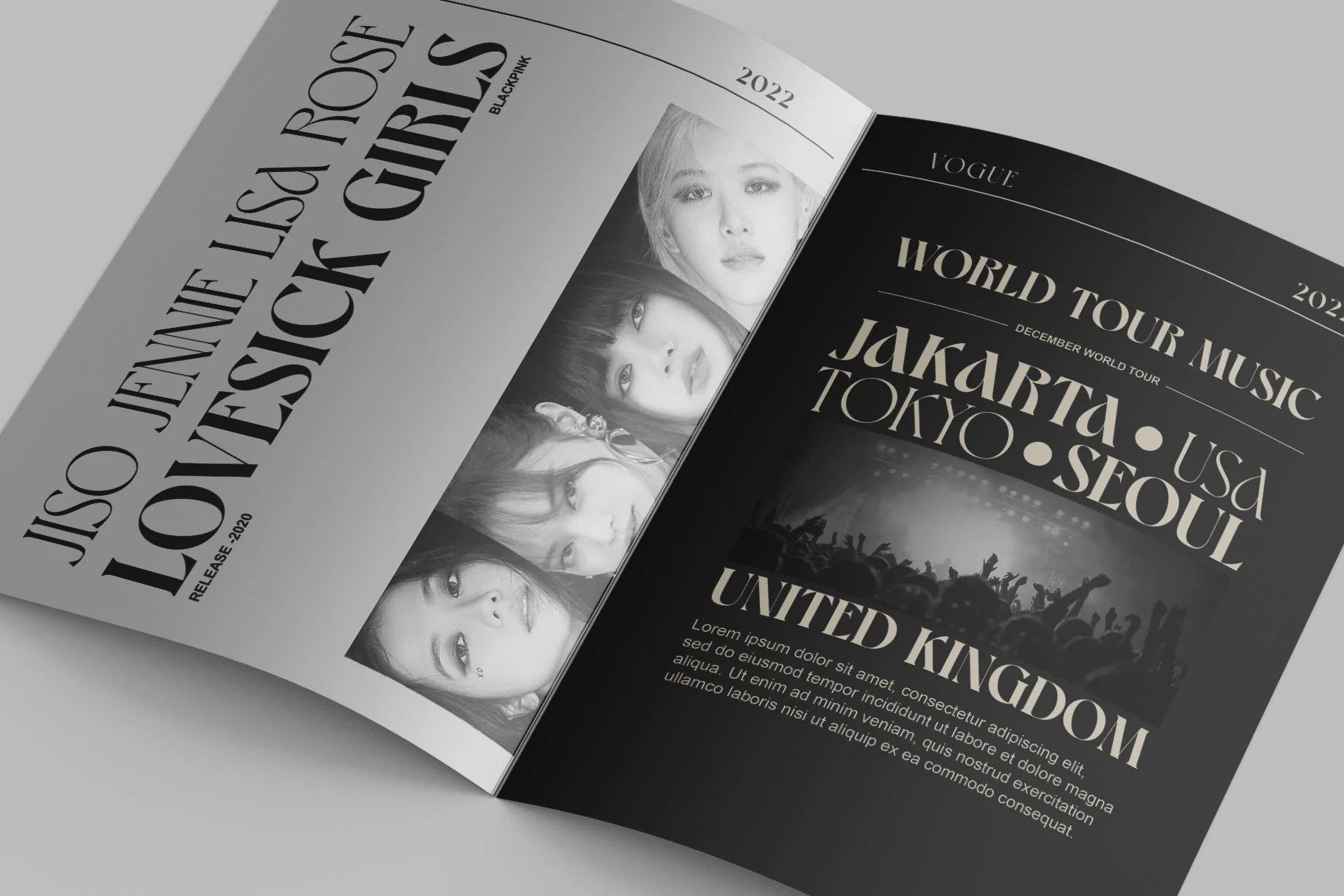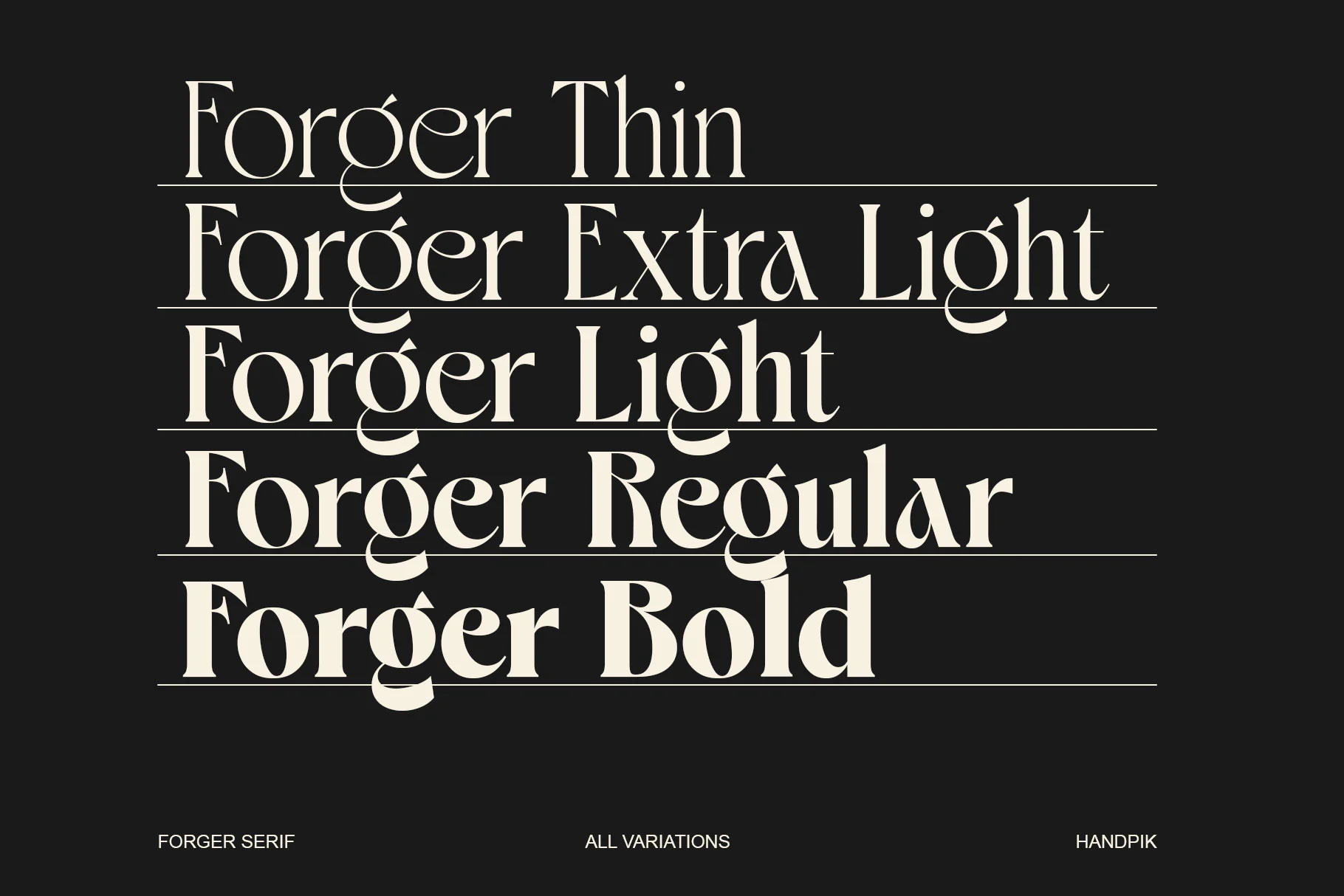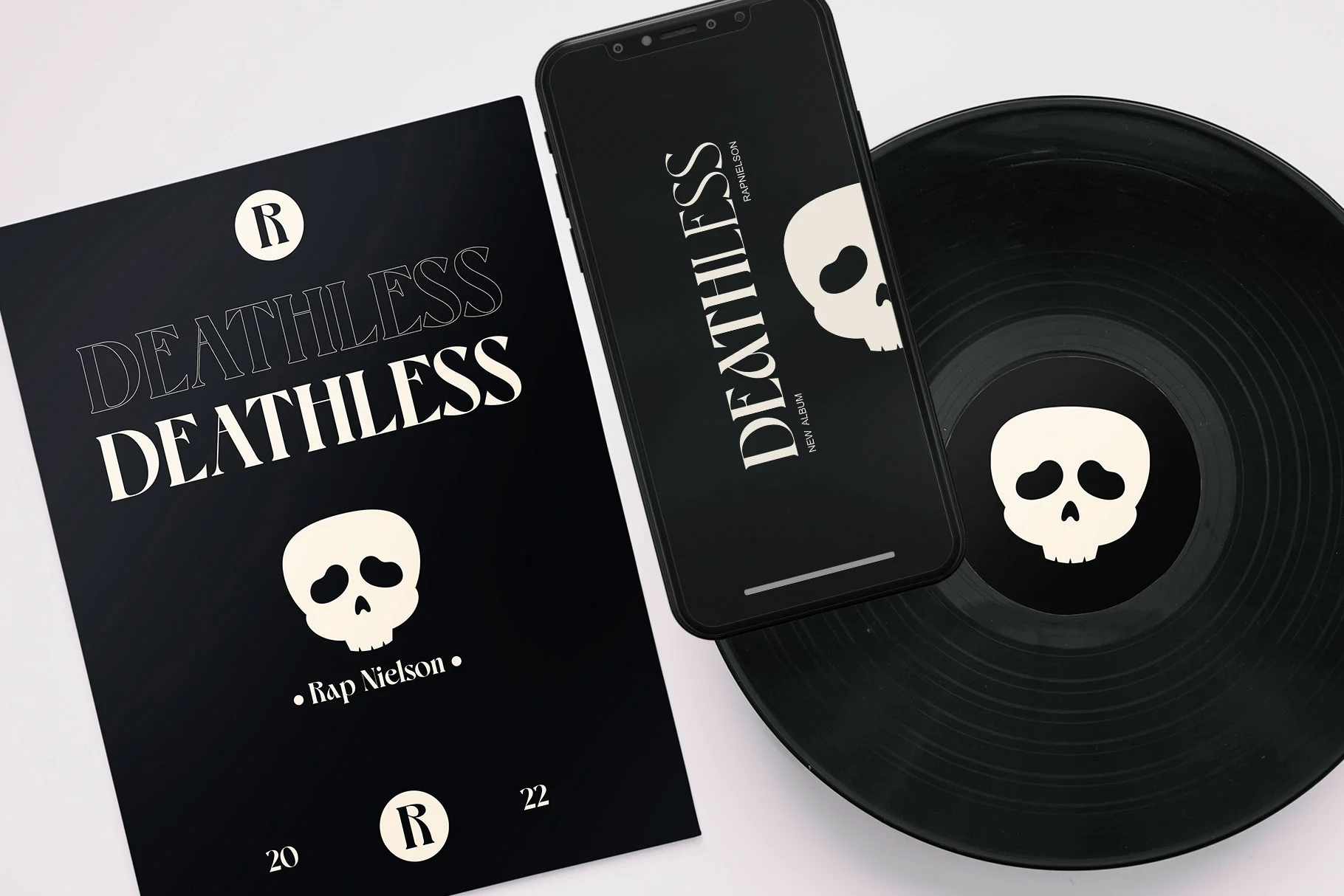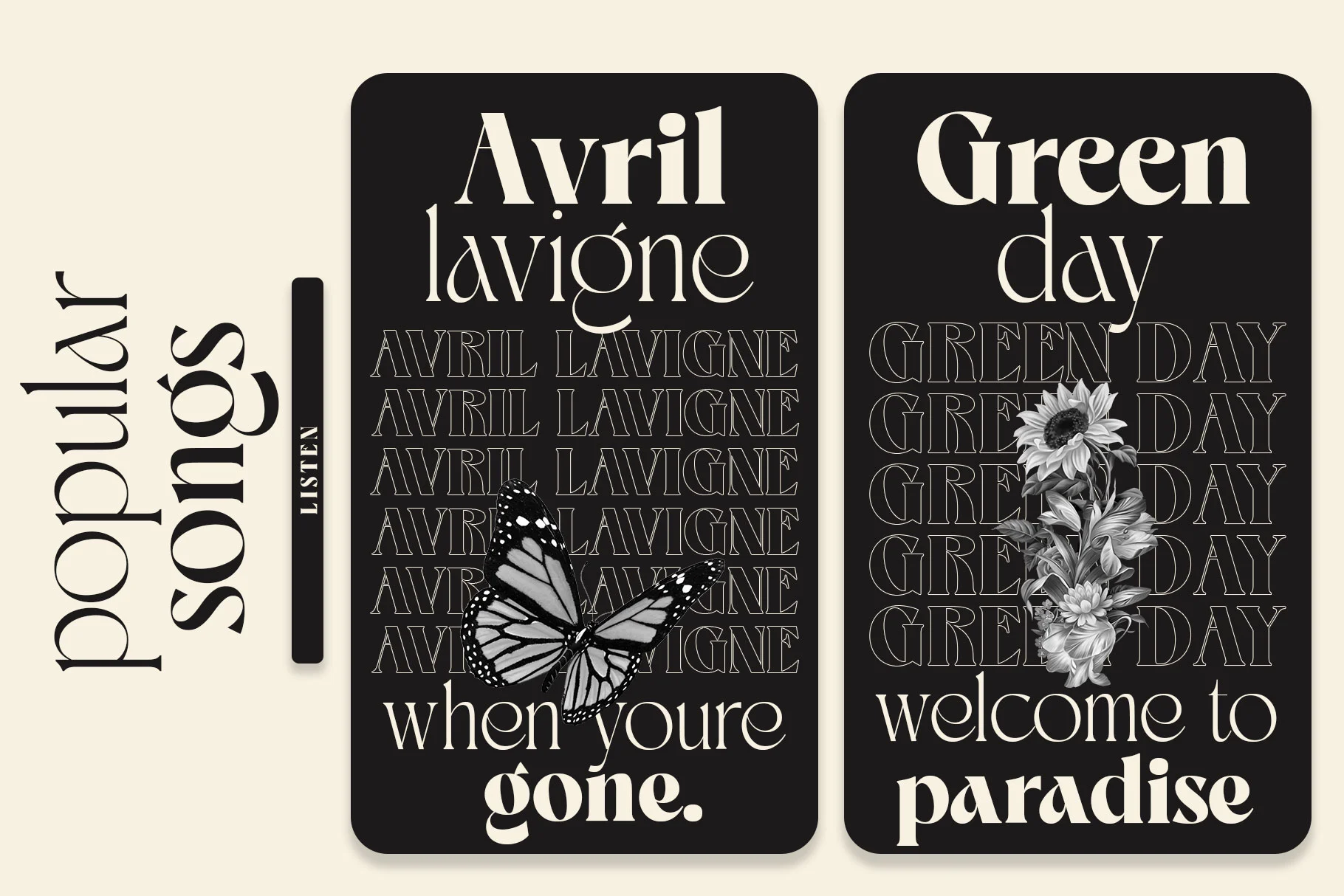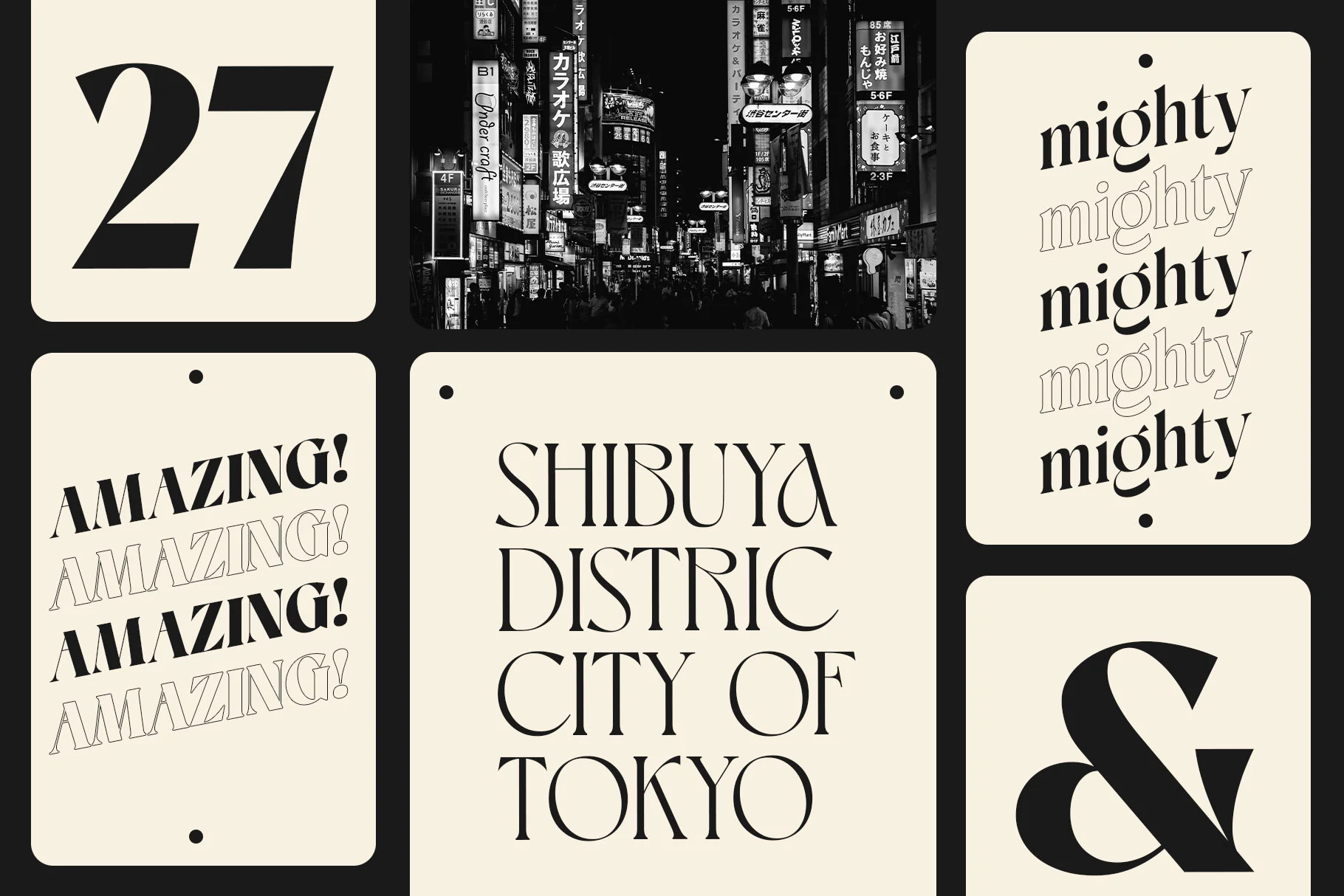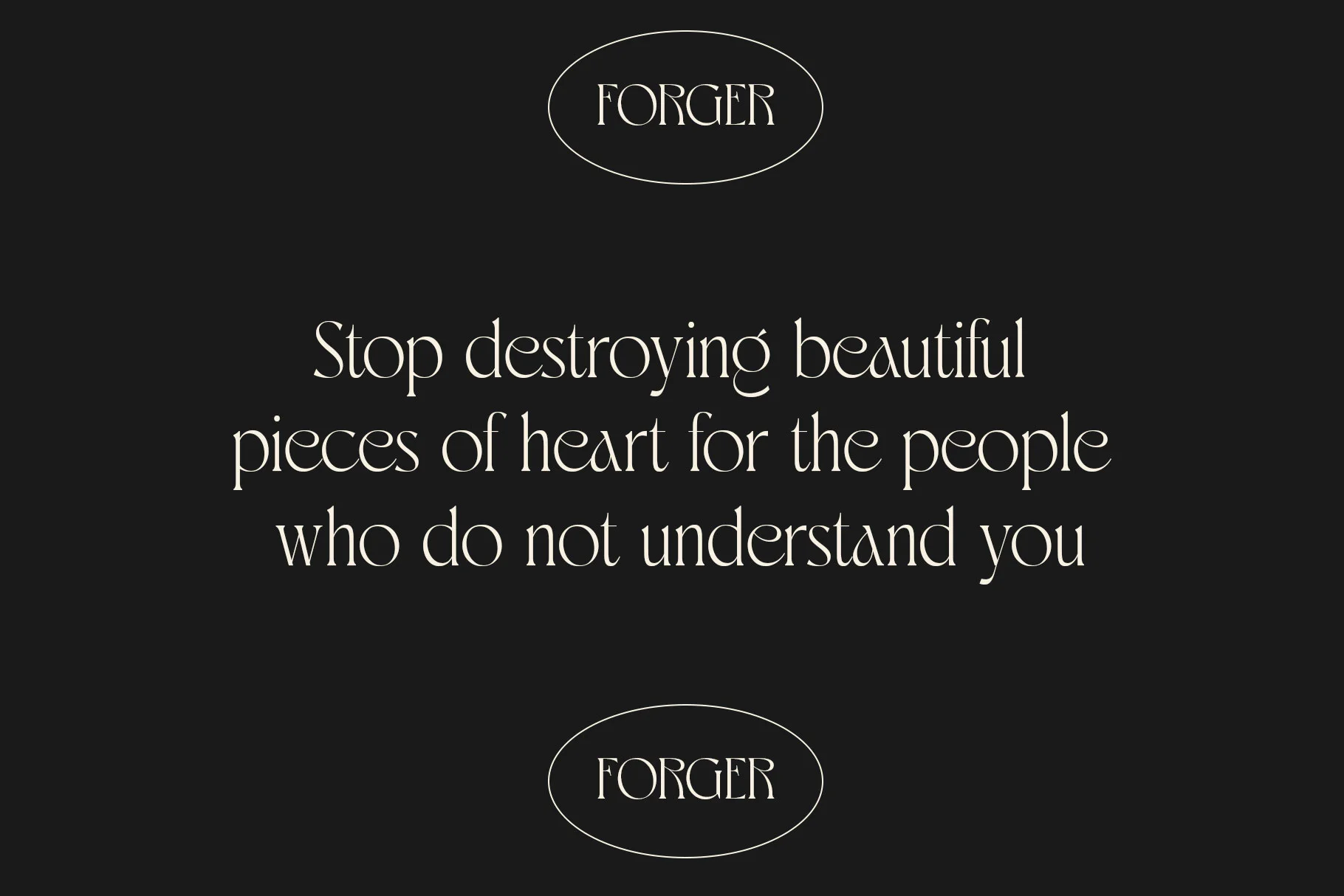
Forger
Forger is a high-contrast serif typeface with a distinctive look. The typeface comes in 5 weights from Thin to Bold.
The Foger font is perfect for various projects like logos & branding, invitations, stationery, wedding designs, social media posts, advertisements, printed quotes, product packaging, product designs, labels, photography, watermarks, special events or anything else.